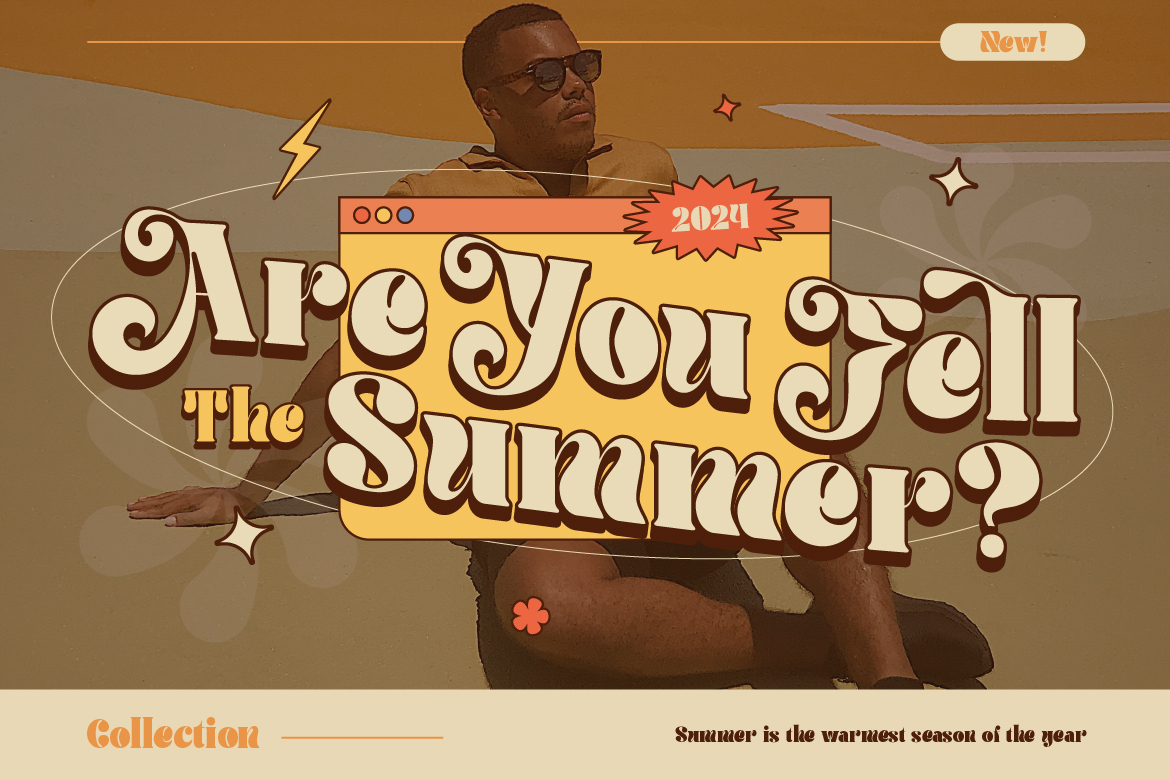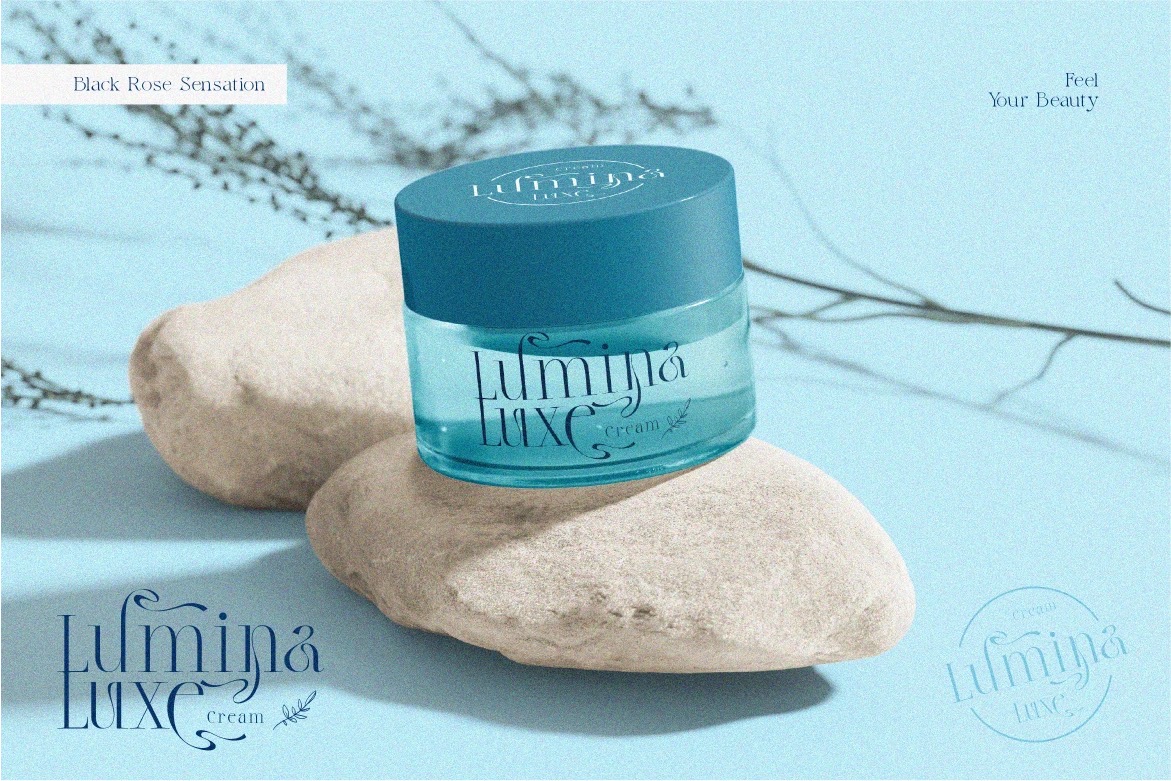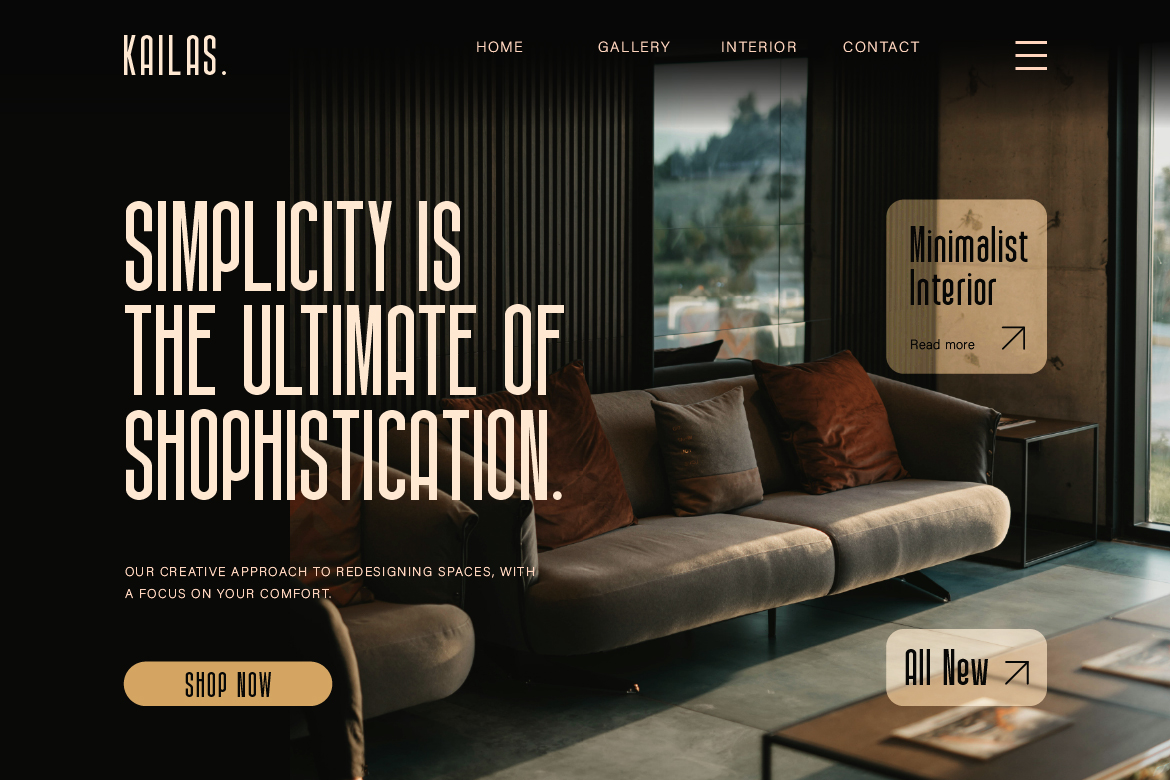
Ever feel like you’re seeing the same kind of fonts everywhere—on Instagram carousels, TikTok covers, or Pinterest moodboards? That’s not just your algorithm talking. Certain font styles are actually trending hard this year, shaping the look of everything from small business promos to viral content.
Here’s a breakdown of the font styles that keep showing up—and why they’re working so well in 2025’s fast-paced, visual world.
These fonts are bold, playful, and full of movement. Their fluid shapes instantly grab attention and give your designs an energetic, modern vibe. Perfect for standing out in a crowded feed.
These narrow letterforms are great for packing a punch in small spaces—like Instagram carousels or TikTok titles. They feel bold and direct, making any message look intentional and clean.
Fonts inspired by the 70s still have a strong presence. Their bubbly, curved forms add a dose of personality and nostalgia—great for lifestyle content and creative branding.
Fonts with high contrast and refined details give off a luxury, magazine-style look. They’re perfect for more polished, minimal feeds and elevate any design instantly.
Whether it’s a casual script or marker-style font, handwritten typefaces keep things personal and approachable. They give a human touch that makes your content feel more relatable.